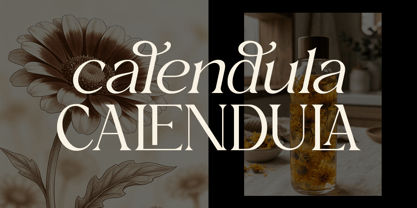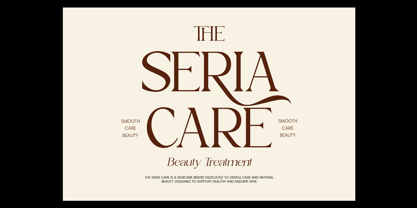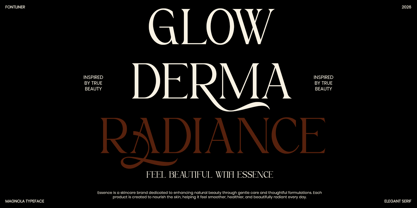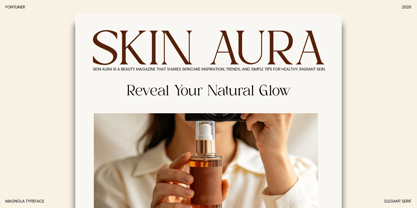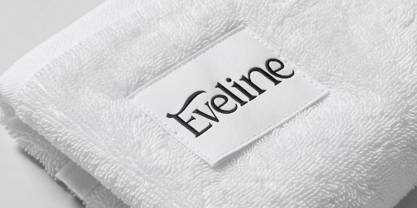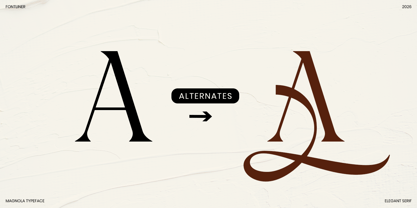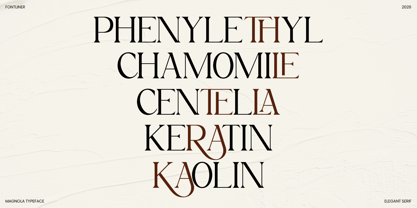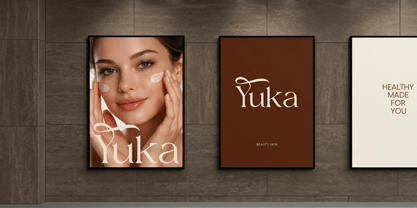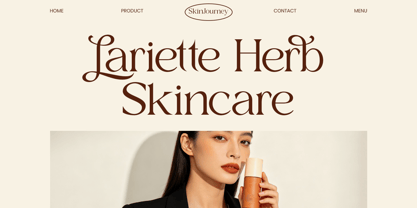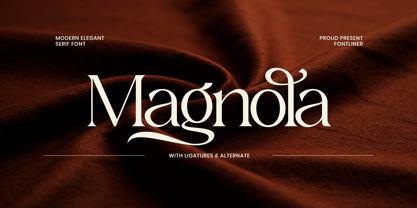
Magnola
by Font Liner
The Magnola Font Family was designed by Ghina Luthfiarieska and published by Font Liner. Magnola contains 2 styles and family package options. More about this family
Magnolia is a modern, elegant serif typeface that seamlessly blends classic sophistication with artistic flair. Inspired by the graceful beauty of natural forms, this font showcases refined serifs, smooth curves, and distinctive ligatures, adding a unique personality to each letter. Its delicate yet confident appearance makes it ideal for crafting timeless and luxurious visual compositions. Designed with versatility in mind, Magnolia excels across various design applications—from editorial layouts and fashion branding to wedding invitations and high-end packaging. The inclusion of stylish alternates and ligatures empowers designers to create more expressive and custom typography, enhancing each project with a touch of elegance and creativity. Whether you're developing a premium brand or designing a romantic visual identity, Magnolia offers a harmonious balance between modern style and classic beauty, making it a standout choice for sophisticated design work.
Designers: Ghina Luthfiarieska
Foundry: Font Liner